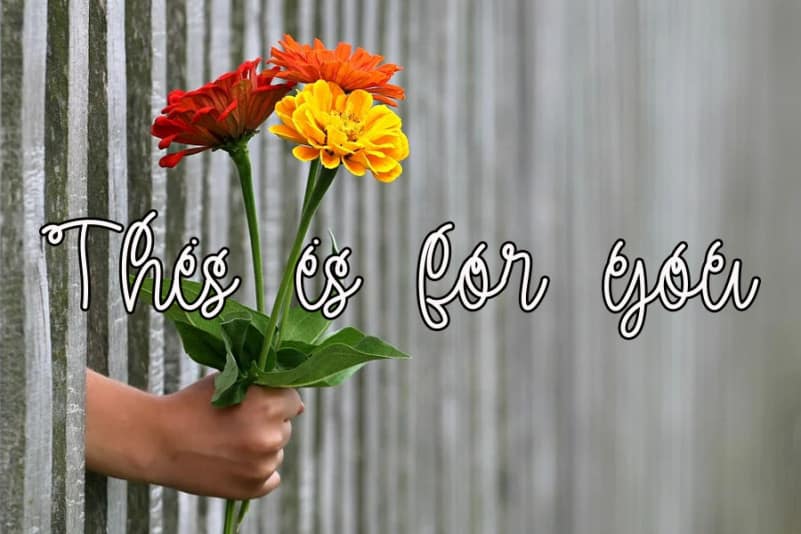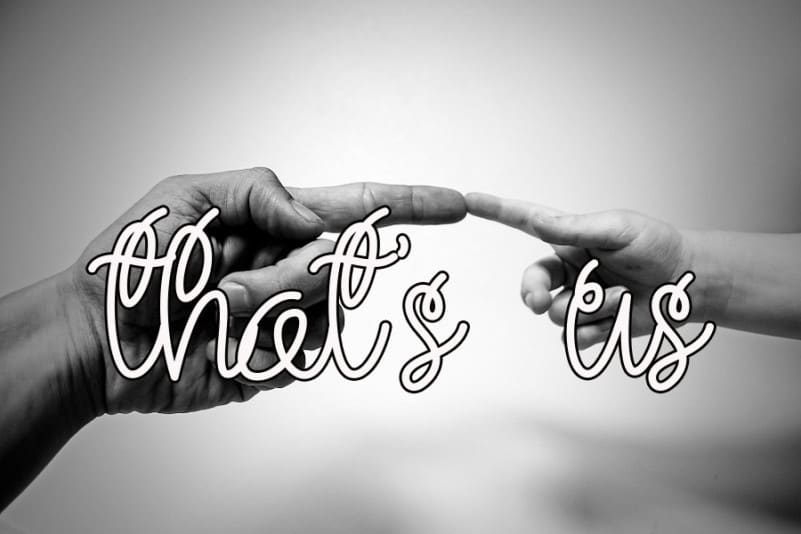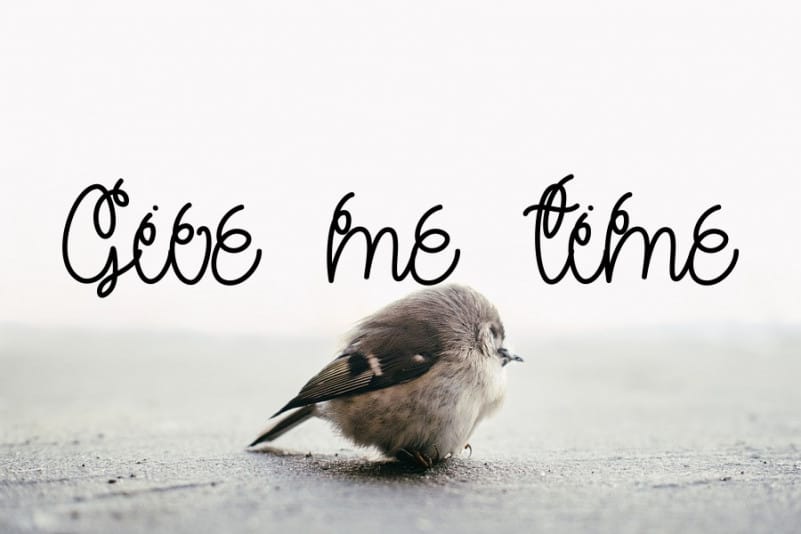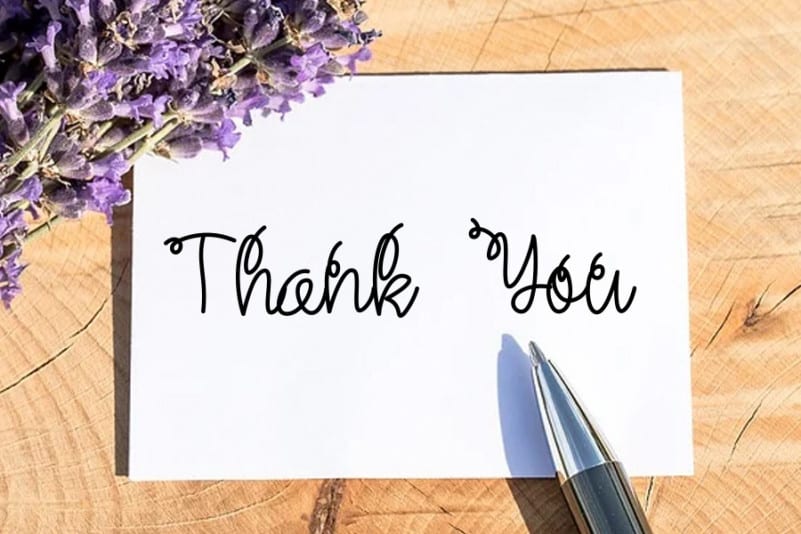
Butterfly Handwritten Font
Butterfly Handwritten Font is a simple, thin and sweet handwritten font. Incredibly versatile, this font fits a wide pool of designs, elevating them to the highest levels.
Latest letters that can be used for various products, invitations, wall hangings, weddings, and more.